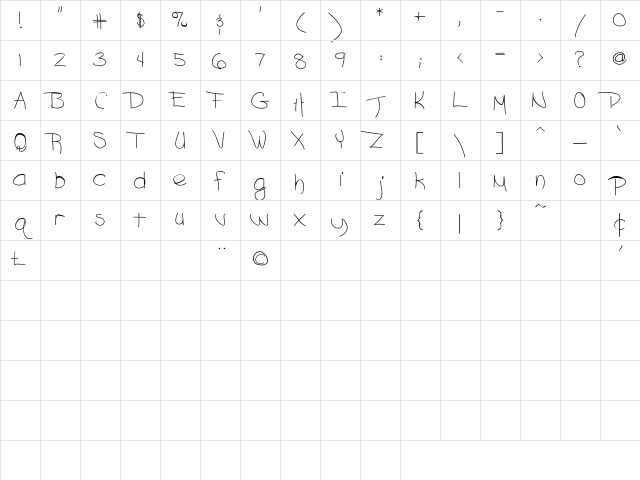
Ashley Regular Free Font
Ashley Regular
Design Context for Ashley
Ashley is a composed and adaptable typeface that performs quietly and consistently across a wide range of design contexts.